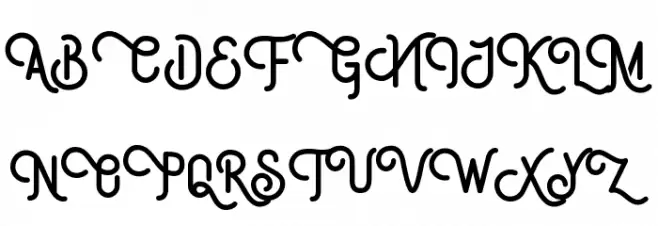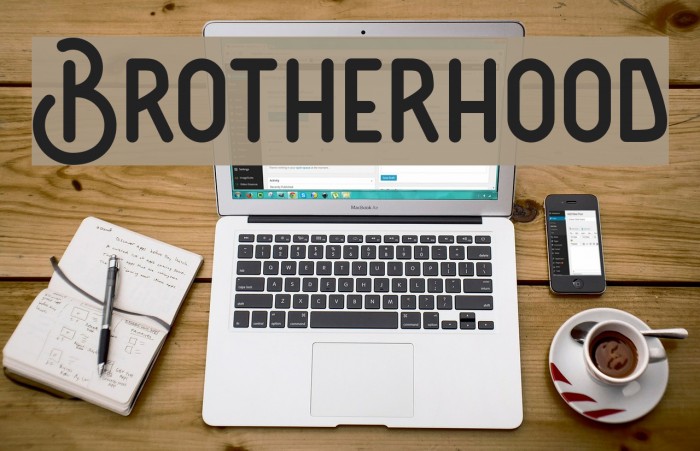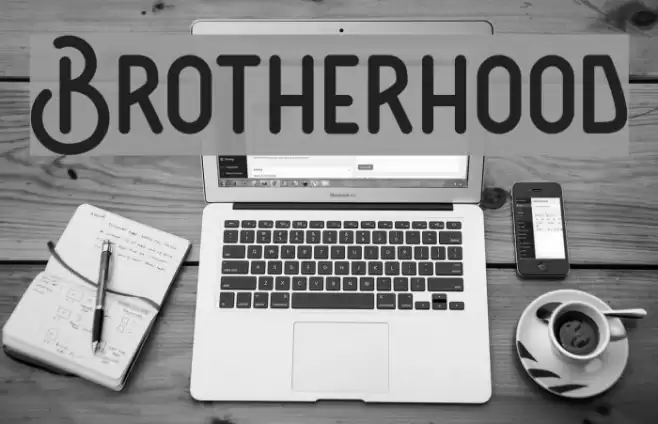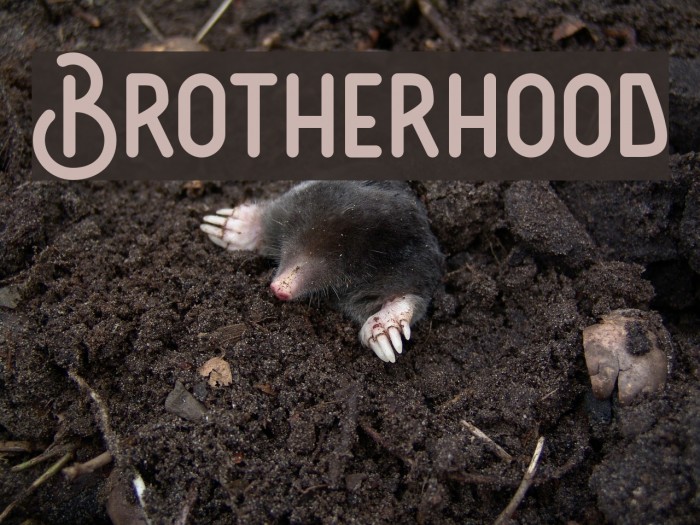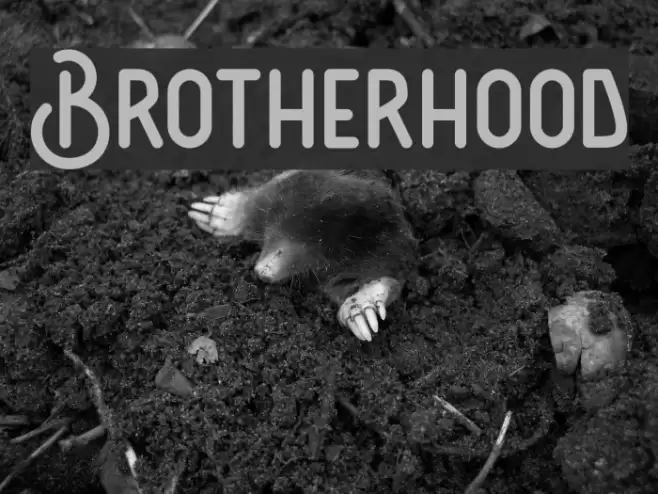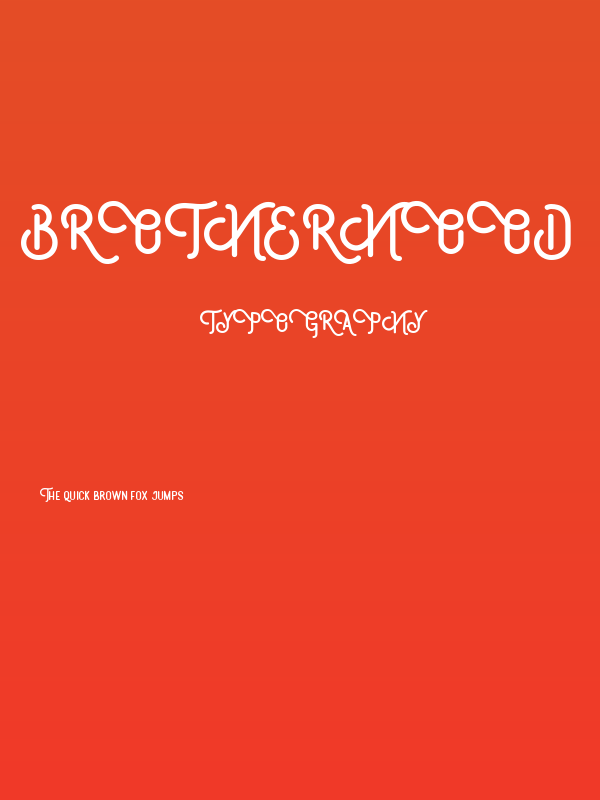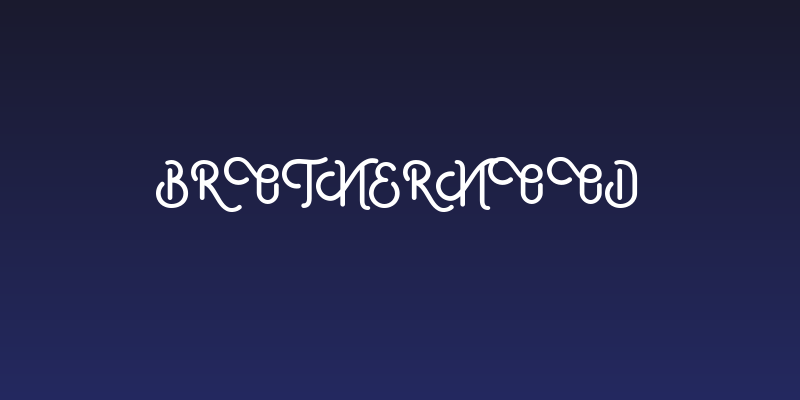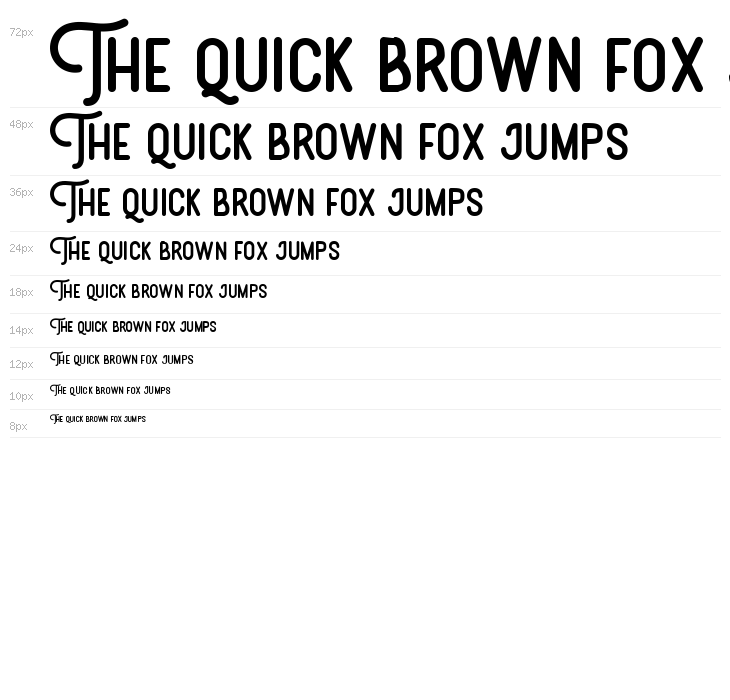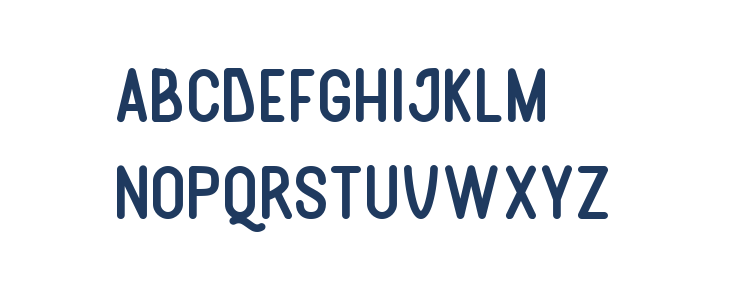
Brotherhood Font
Brotherhood Description
This font features a unique blend of decorative and bold elements, offering two distinct styles. The first style is highly decorative, with intricate swirls and loops that give it an ornate and artistic appearance. The second style is bold and straightforward, with clean lines and a strong presence. Both styles maintain a consistent character width, providing a balanced look. The decorative style is perfect for creative projects, while the bold style is ideal for clear, impactful text. The font's versatility makes it suitable for a variety of design needs.
| Proposed Projects | Ideal for branding, invitations, posters, and any project requiring a mix of elegance and clarity. |